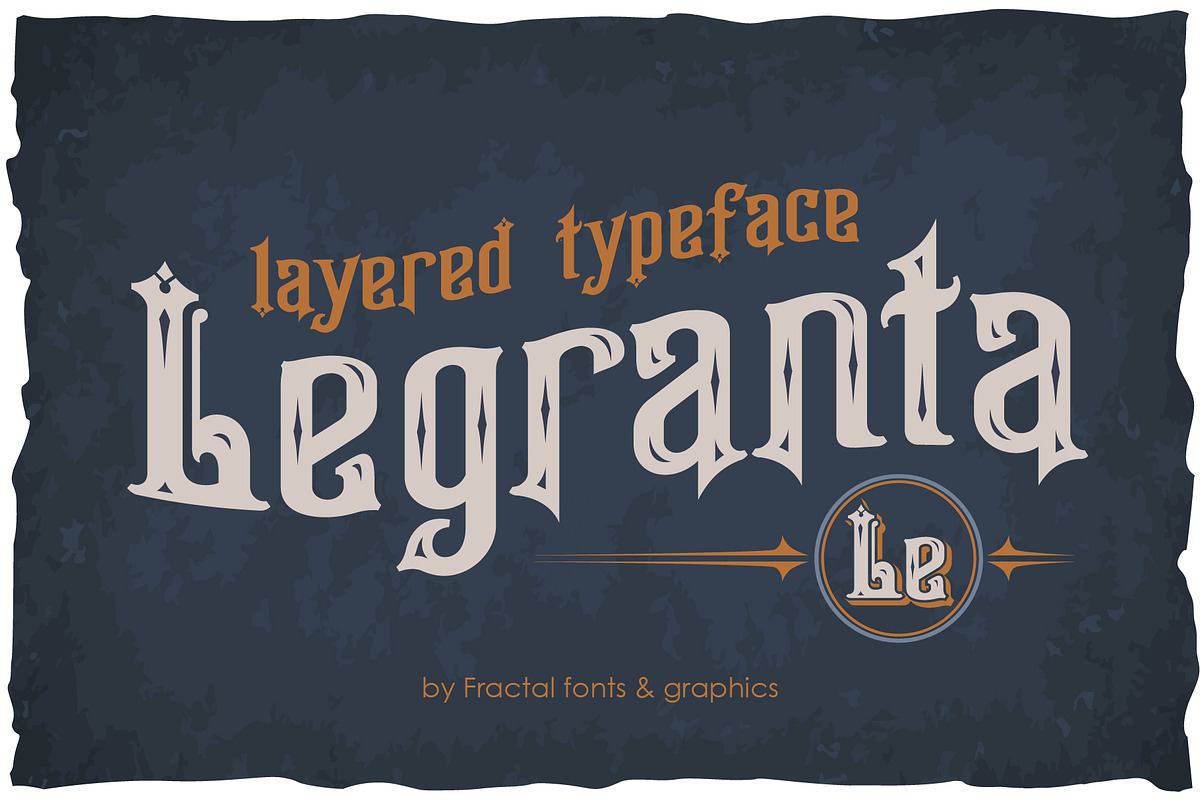
Please note, to use this font for commercial purposes, you must purchase the full version. Legranta is a unique and stylish vintage multilayered font that combines classic charm with a modern twist. With its layered structure, this font offers endless design possibilities for logos, posters, branding, and creative projects. Whether you're designing for a retro-inspired brand, a vintage-style event, or a stylish logo, Legranta adds depth and character to your work. Test it out and enjoy free download access for personal use. Experience the versatility and vintage appeal of Legranta - Vintage Multilayered Font Free Download before purchasing the commercial license. Enhance your designs with the rich, timeless style of Legranta.